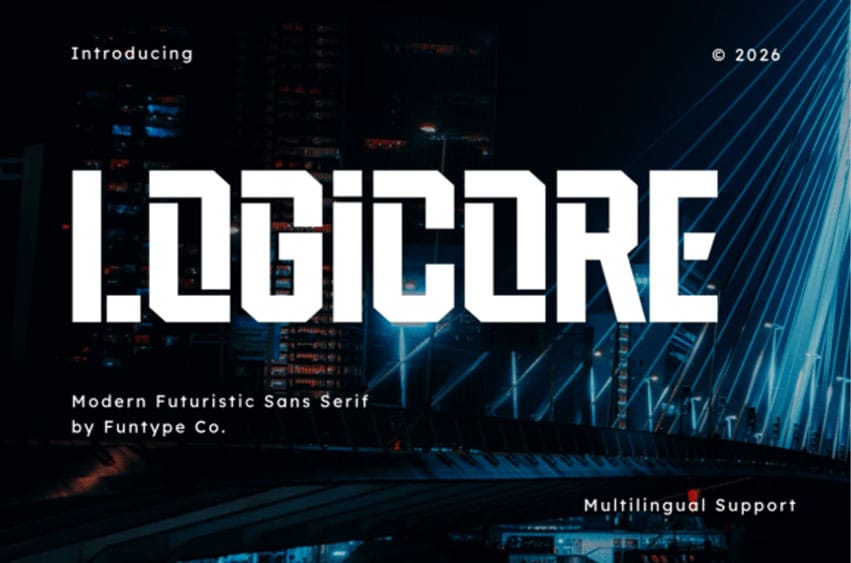
Logicore Font is a modular, robust, and beautifully stylized modern futuristic sans serif font tailored for precise, high-impact branding and commercial craft design. Showcasing an octagonal geometric block structure, heavy weights, and clean technical silhouettes with sharp chamfered corner cuts, this typeface is exceptionally qualified for commanding headlines, aggressive urban streetwear clothing lines, custom vehicle vinyl decals, esports team logo designs, activewear branding, and bold promotional posters.
Its authoritative, solid, and perfectly balanced presentation infuses screen prints, physical merchandise layouts, and custom crafting projects with an advanced, cutting-edge fashion and high-tech lifestyle finish. Furnished in OTF and TTF standard formats with full multilingual support for a clean integration across all leading creative graphic design suites, cutting machine software, and fabric printing systems.